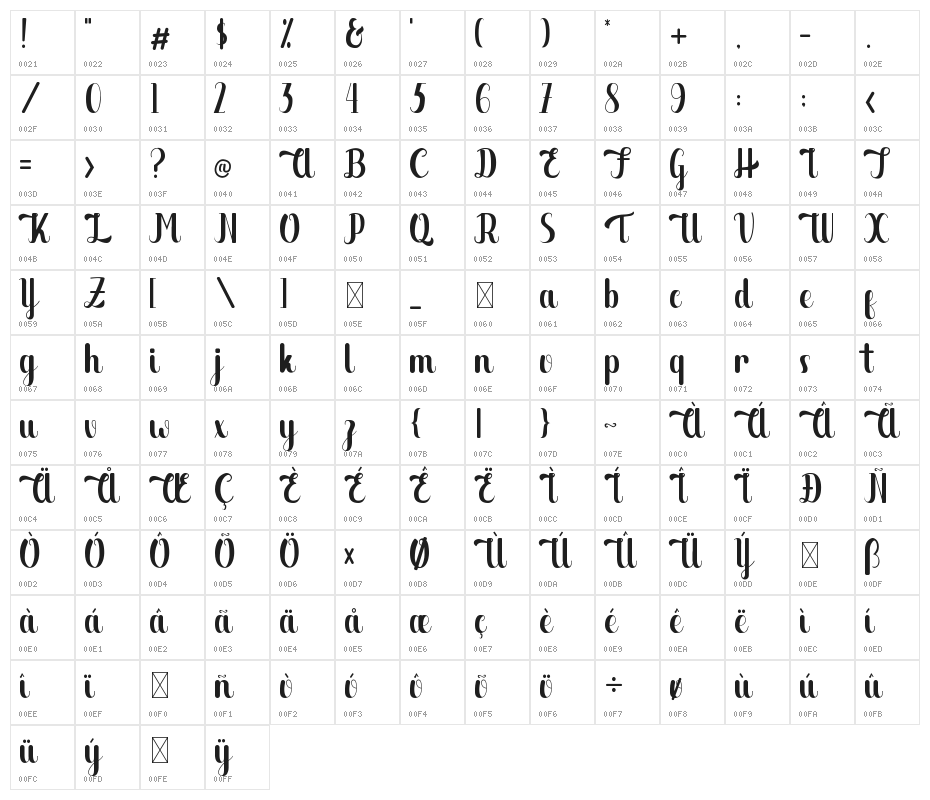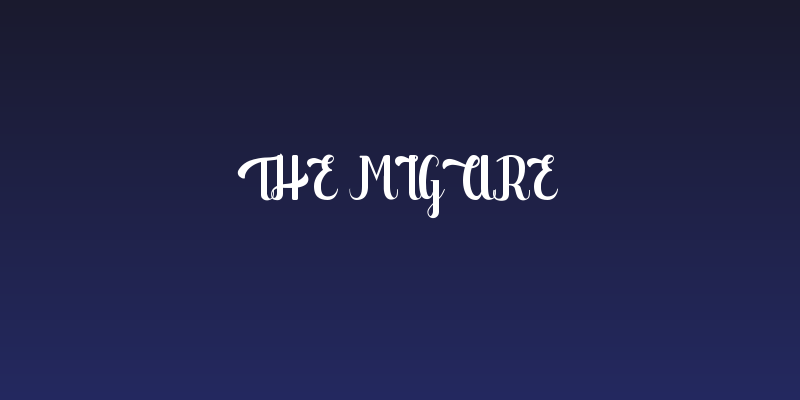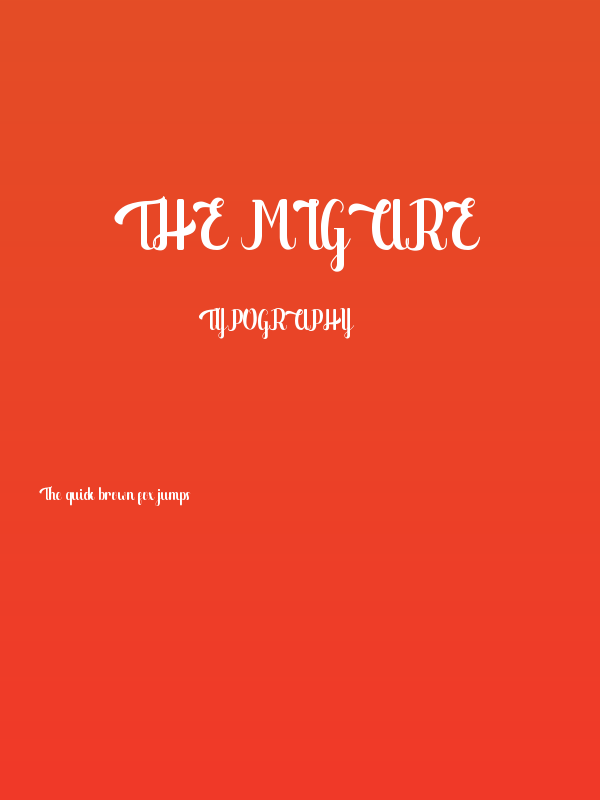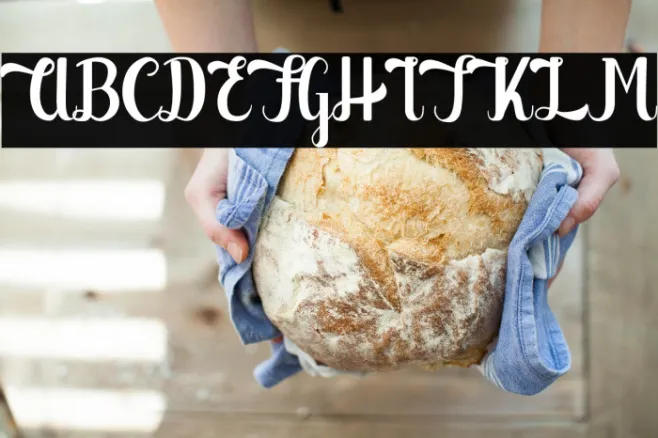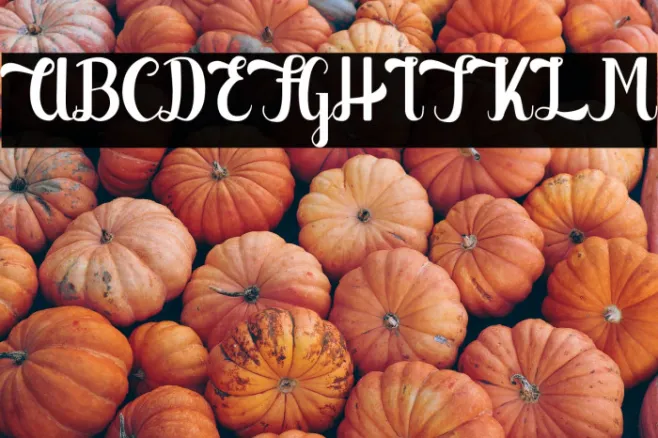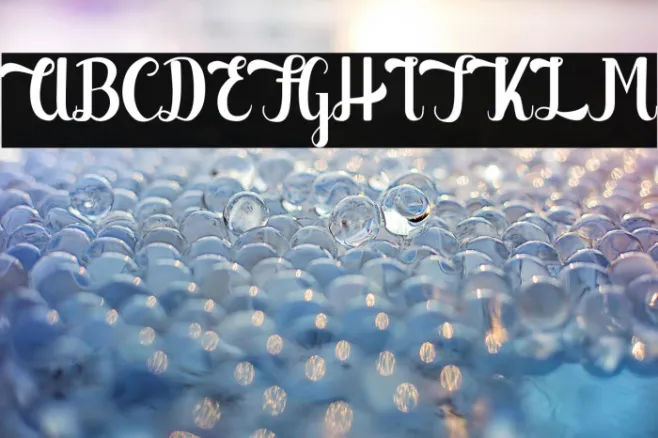
The Migare Font
The Migare Description
This font features a playful and elegant script style with a modern twist. The uppercase letters are characterized by their flowing, interconnected strokes, giving a sense of continuity and movement. The lowercase letters maintain a similar fluidity, with a slightly more compact form, enhancing readability. The numerals are distinct and bold, providing a nice contrast to the more delicate letterforms. Special characters are designed with the same attention to detail, ensuring consistency across the entire typeface. The overall design is both sophisticated and approachable, making it suitable for a variety of creative applications.